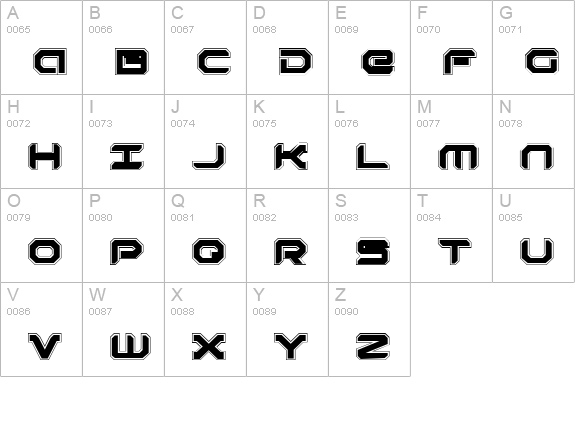
Introducing Robotaur Academy font, a modern and futuristic typeface perfect for adding a touch of innovation to your designs. This unique font captures the essence of technology and creativity, making it ideal for projects that require a contemporary and cutting-edge look. Robotaur Academy font features sleek lines and sharp edges that give it a distinct and dynamic appearance. The best part about Robotaur Academy font is that it is completely free to download at FontsMarket.com. This means you can easily access this stylish font without any cost, making it a valuable addition to your font collection. Whether you're working on a branding project, poster design, or website layout, Robotaur Academy font will help you stand out and make a lasting impression. With its versatility and modern aesthetic, Robotaur Academy font is a must-have for designers looking to add a futuristic touch to their work. Download it today for free and unleash your creativity with this innovative typeface.